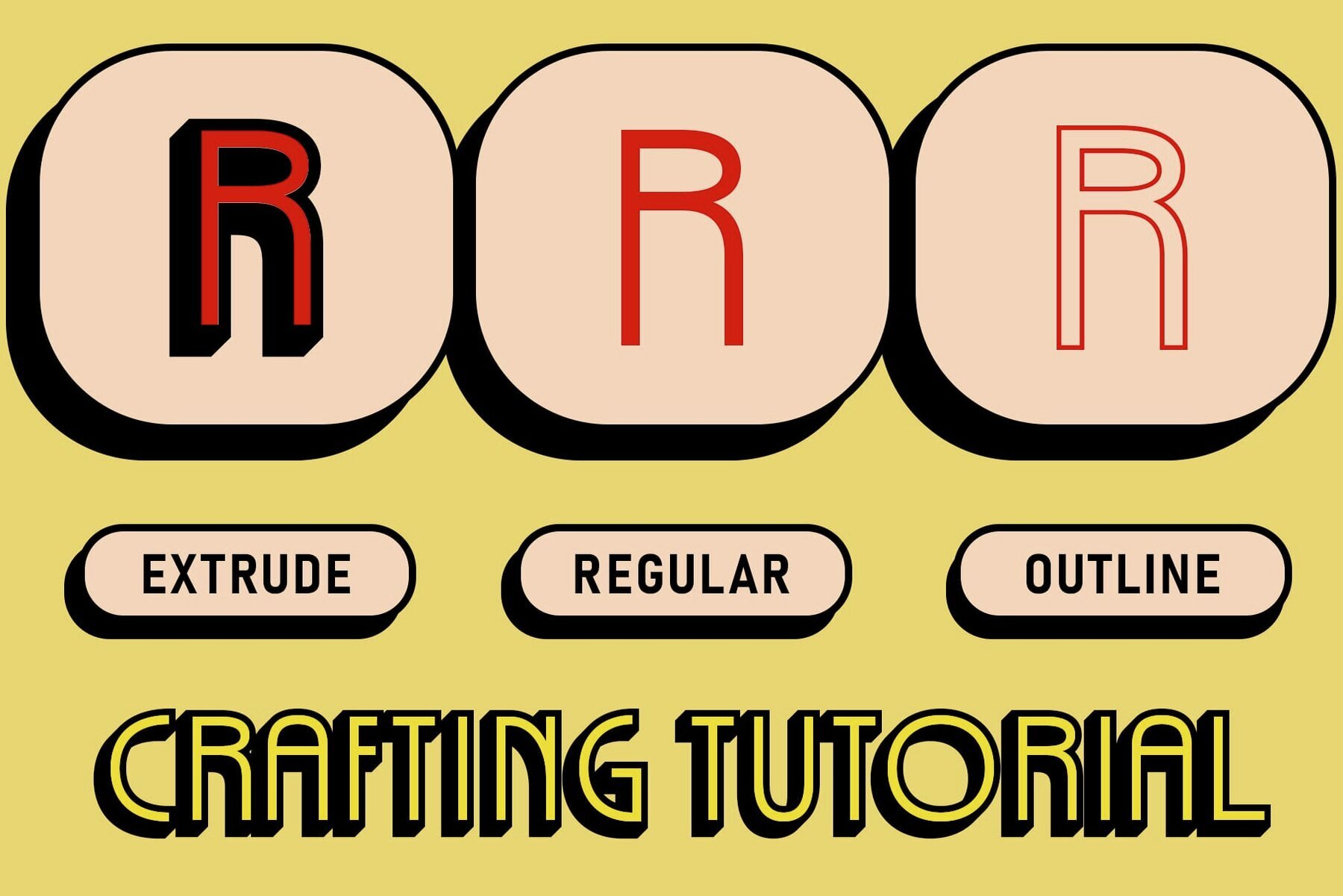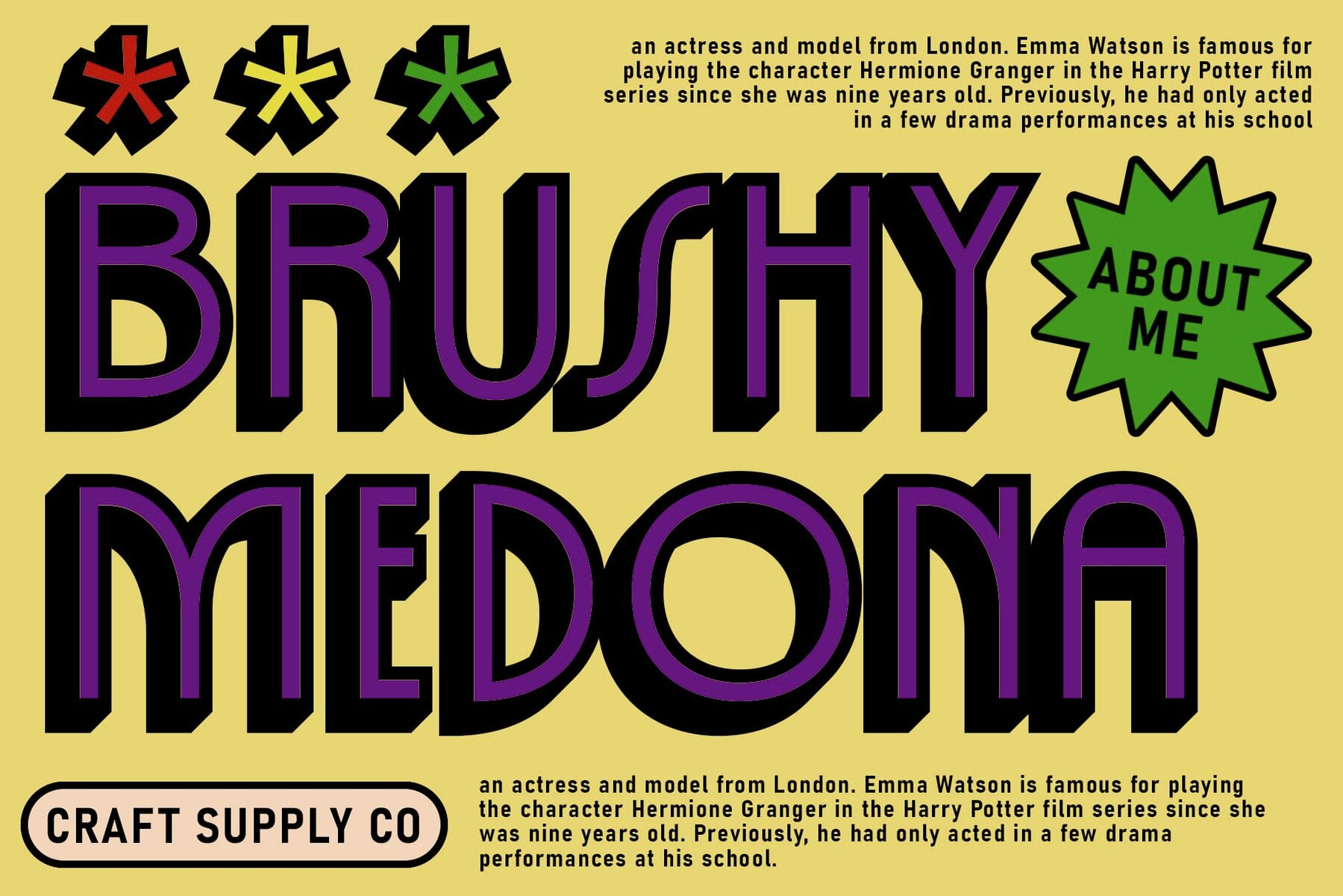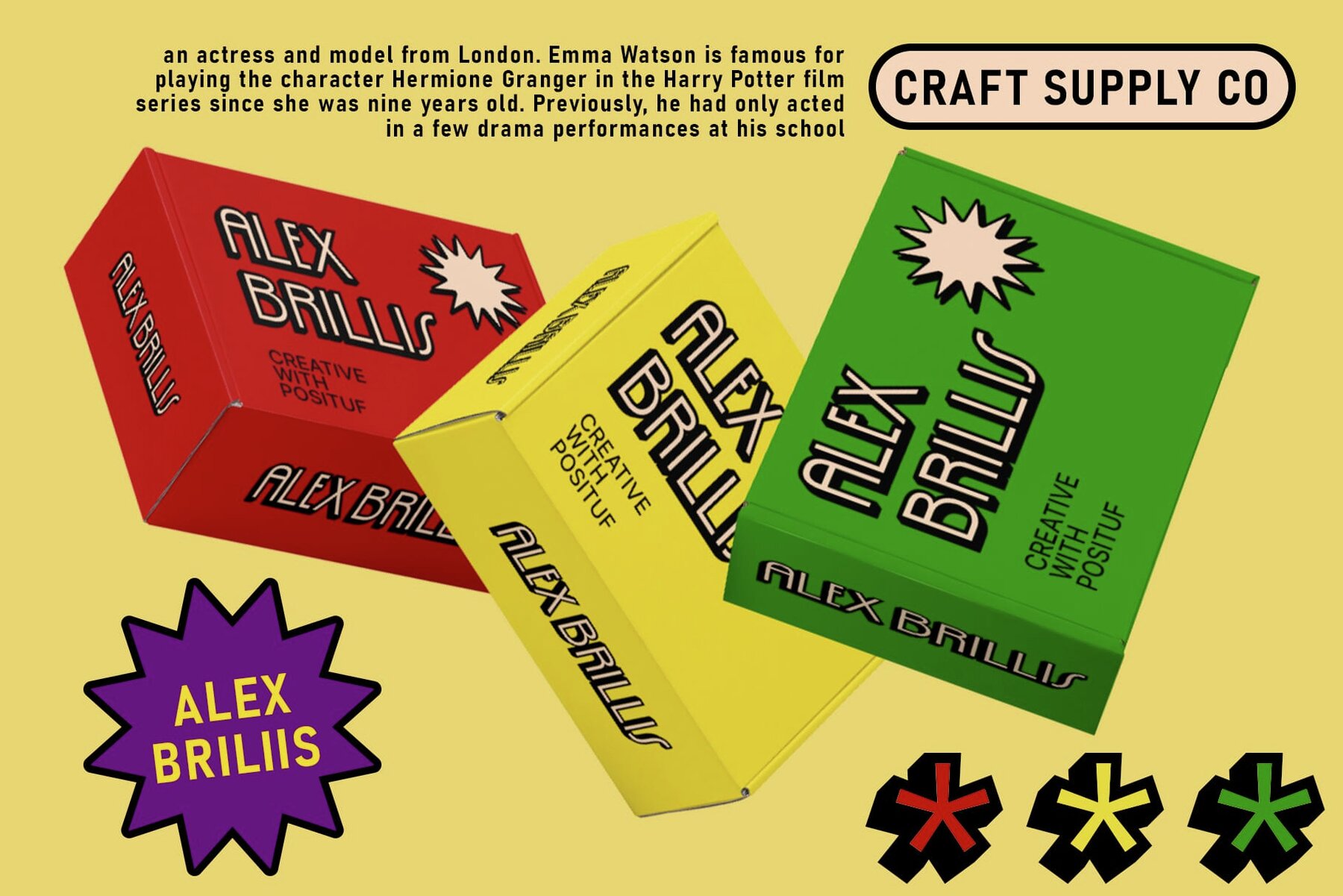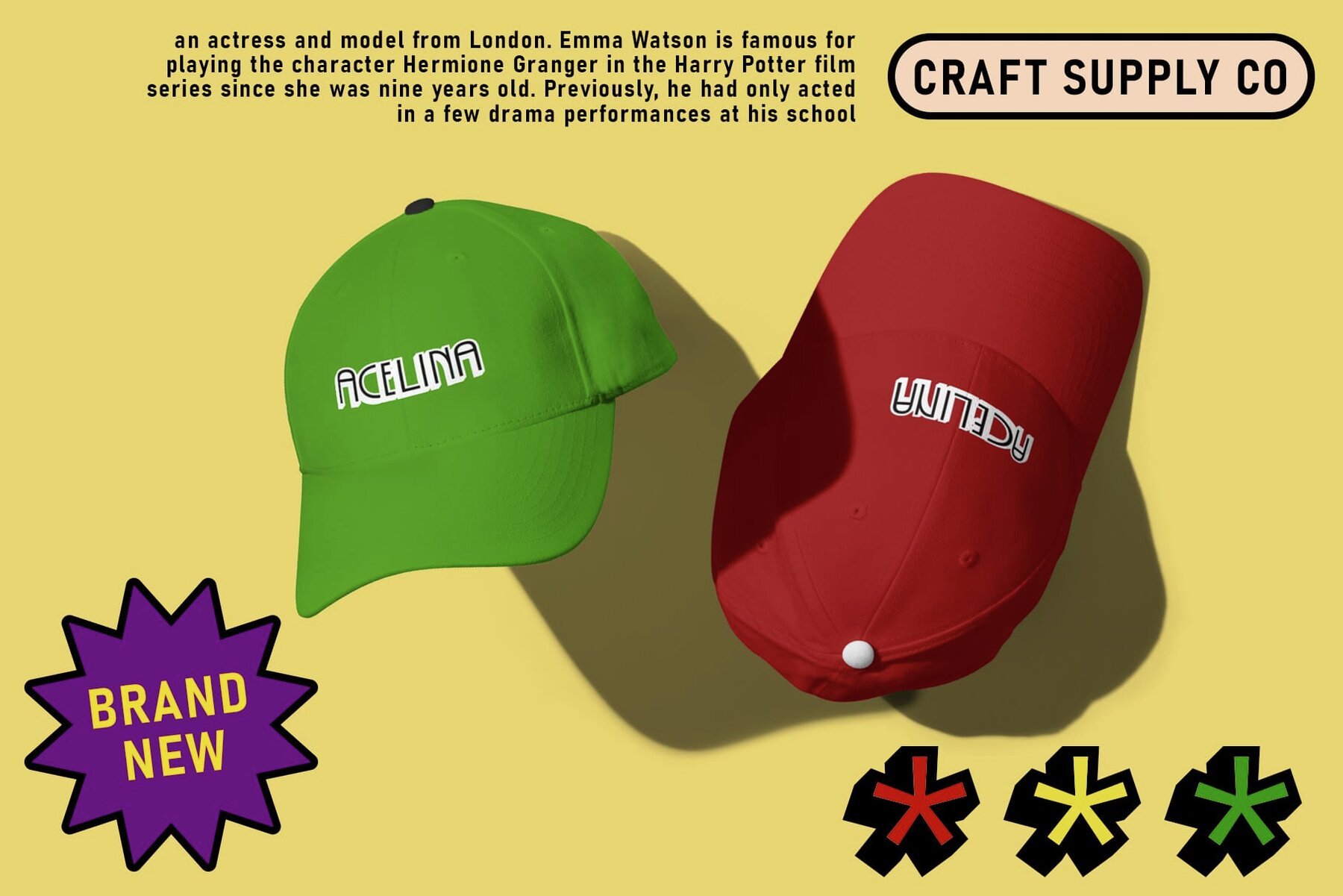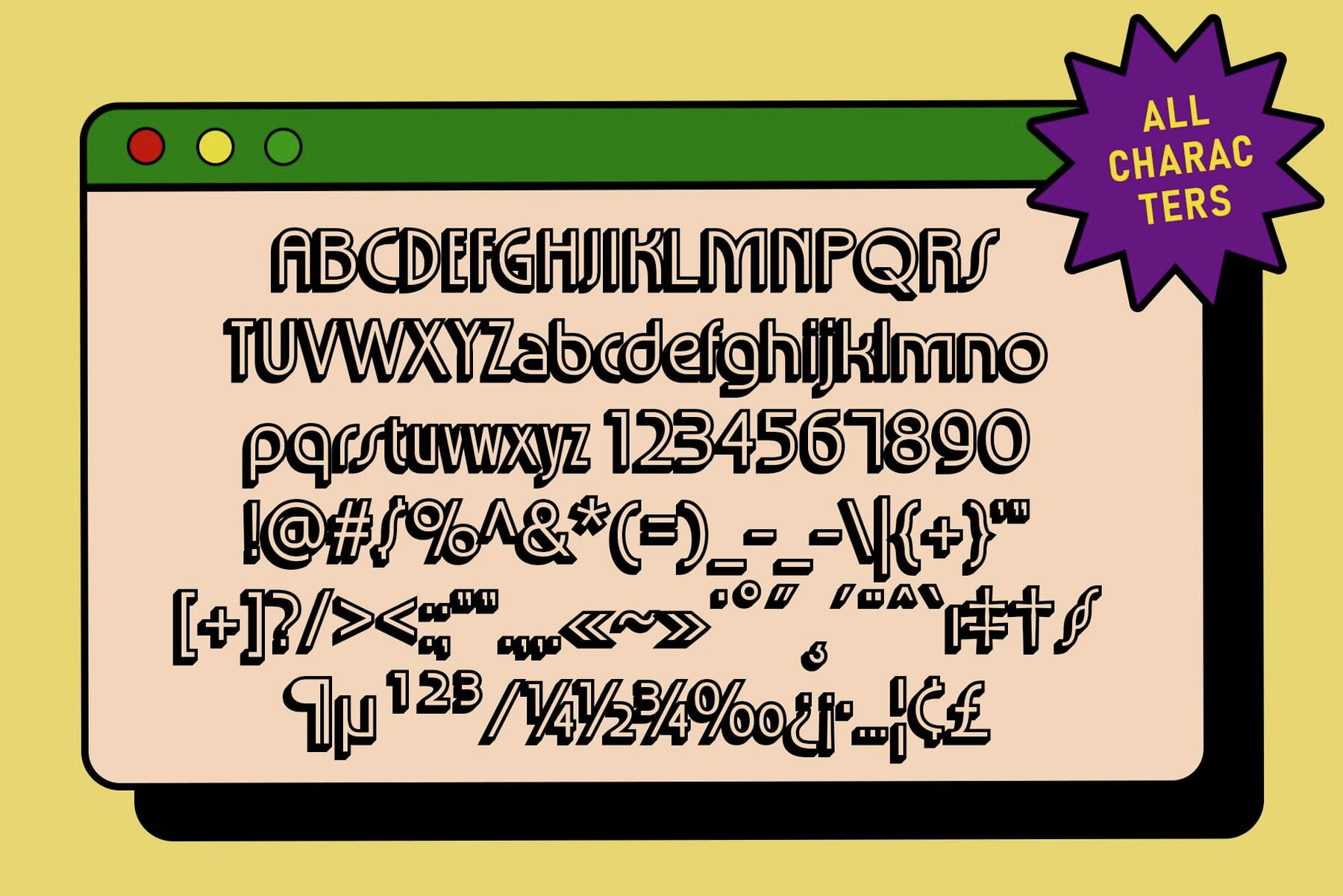
Acelina 3D Font
Acelina 3D: Reviving Art Deco Elegance
Acelina 3D draws inspiration from the clean lines and geometric forms of the Art Deco movement. Its sleek and sophisticated design pays homage to the timeless elegance of the early 20th century while incorporating stunning 3D effects that add depth and dimension. This modern twist offers a contemporary edge while retaining its Art Deco charm.
Crafted primarily for display purposes, Acelina 3D excels in a variety of applications, from branding and advertising to digital interfaces. Its clean and crisp appearance ensures readability and impact across different media. The combination of elegant Art Deco aesthetics and dynamic 3D effects makes it a captivating and versatile choice for projects demanding sophistication and style.